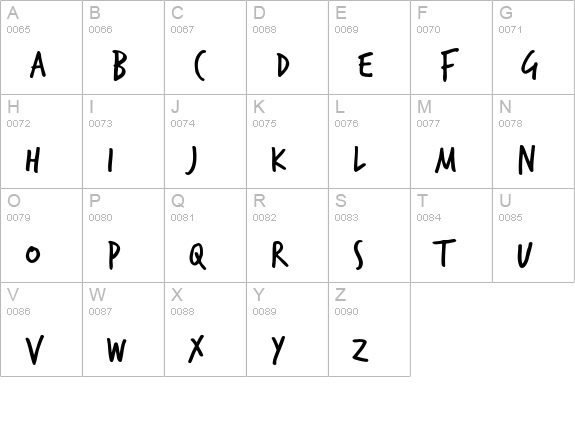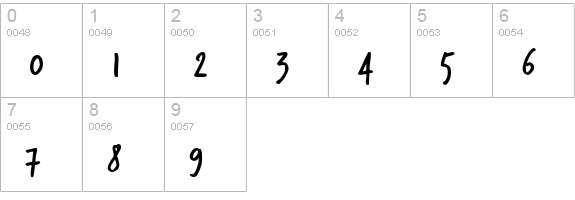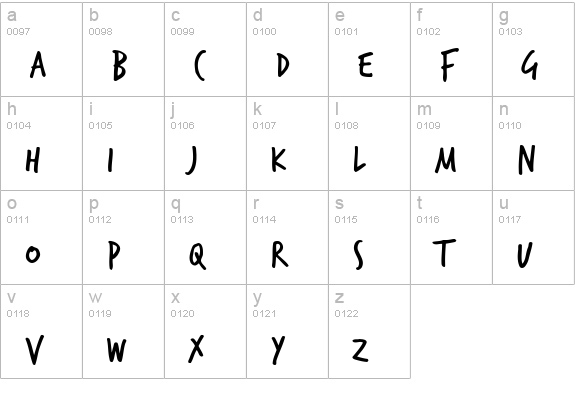
TrashHand Font Details
Introducing TrashHand font, a trendy and versatile typeface that will bring a touch of urban flair to your designs. With its edgy and grungy aesthetic, TrashHand font captures the spirit of street art and the energy of the cityscape. This font is perfect for projects that require a bold statement, whether it's designing logos, creating eye-catching posters, or adding an urban twist to your social media graphics. Its unique letterforms and rough texture make it stand out from the crowd, giving your designs an authentic and artistic appeal. What's even better is that TrashHand font is absolutely free! Yes, you read that right. This incredible font is freely available to download at FontsMarket.com, a trusted source for high-quality fonts. Now you can enhance your designs without breaking the bank. TrashHand font offers a wide range of characters, including uppercase and lowercase letters, numerals, punctuation marks, and special symbols. Its versatility allows you to experiment and play around with different styles, giving your designs a personalized touch. Whether you're a professional designer or a creative enthusiast, TrashHand font will become your go-to choice for projects that demand a modern and urban vibe. So why wait? Head over to FontsMarket.com and get your hands on this fantastic font today!